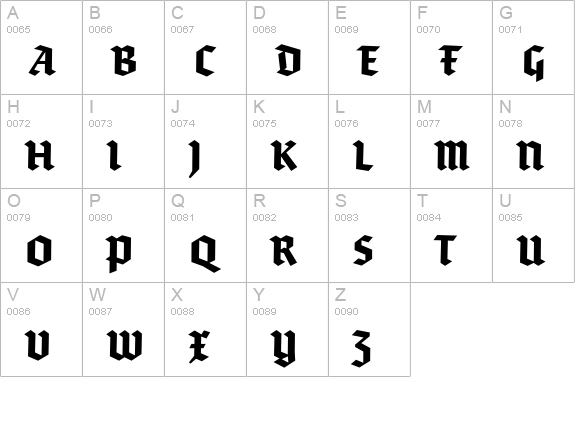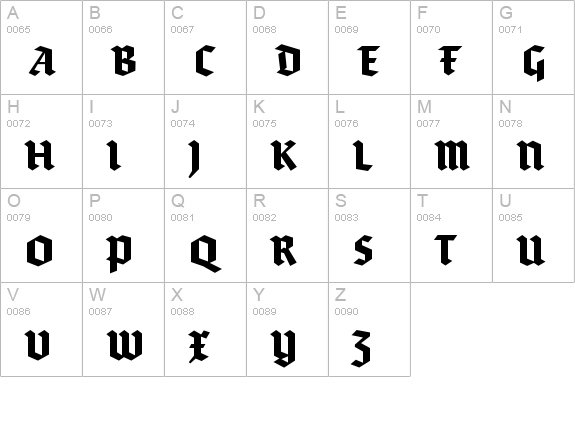
Brokenscript-BoldCond is a striking and bold display font that exudes a sense of edgy sophistication. With its unique broken script style, this font is perfect for making a statement in your designs. The condensed letterforms add a modern touch, making it ideal for headlines, titles, and branding projects. Brokenscript-BoldCond is versatile and can be used in a variety of design applications, from posters and packaging to logos and social media graphics. The best part? Brokenscript-BoldCond is completely free to download at FontsMarket.com. Whether you're a professional designer or just looking to add some flair to your personal projects, this font is a must-have in your collection. Don't miss out on the opportunity to elevate your designs with this bold and eye-catching typeface. Download Brokenscript-BoldCond today and unleash your creativity!